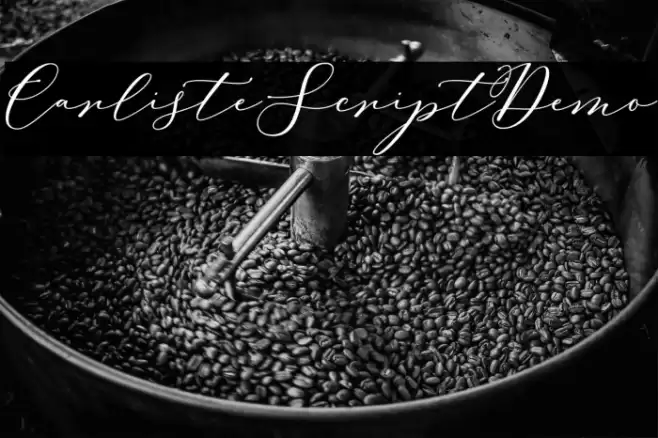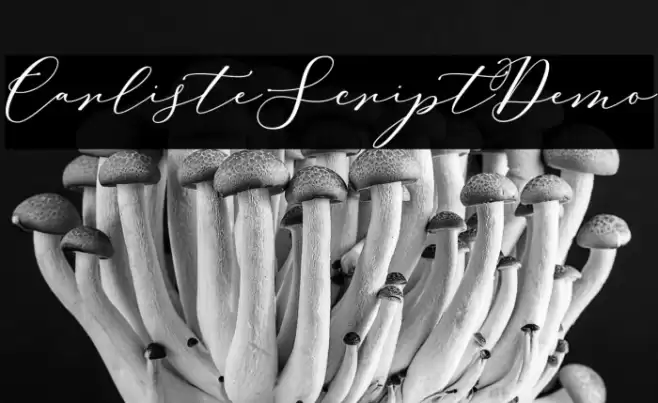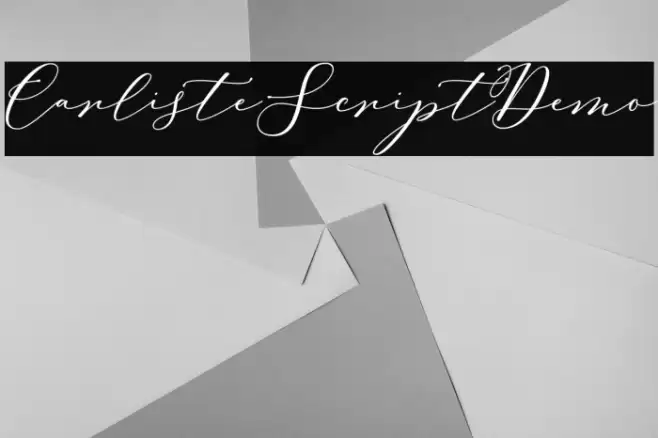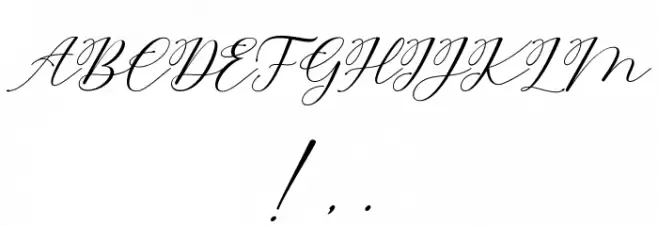
CarlisteScriptDemo Font
CarlisteScriptDemo Description
This elegant script font features flowing, interconnected letters with a classic calligraphic style. The uppercase letters are ornate with sweeping curves and loops, while the lowercase letters maintain a graceful, fluid form. The font exhibits a high contrast between thick and thin strokes, enhancing its sophisticated appearance. It is well-suited for formal invitations, branding, and decorative purposes. The character spacing is normal, allowing for readability while maintaining its artistic flair.
An elegant, high-contrast script font with flowing, interconnected letters from Regular fonts.
- Proposed Projects: Ideal for wedding invitations, elegant branding, greeting cards, and decorative headlines.
- Overall Style: Classic
- Use Case: Headlines, Logos, Invitations